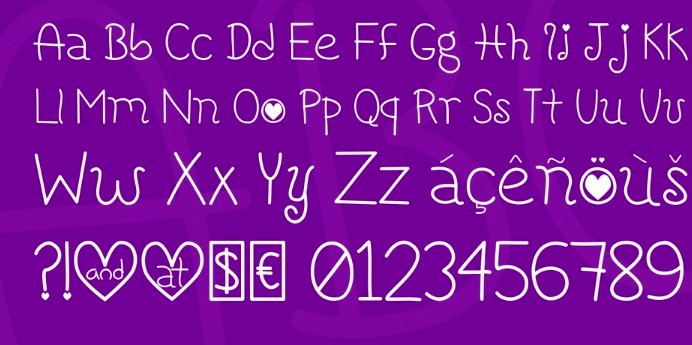
We are excited to present the Violet Bee font, a fantastic hand-drawn typeface with a playful and unique design structure that offers a variety of styles and ligatures.